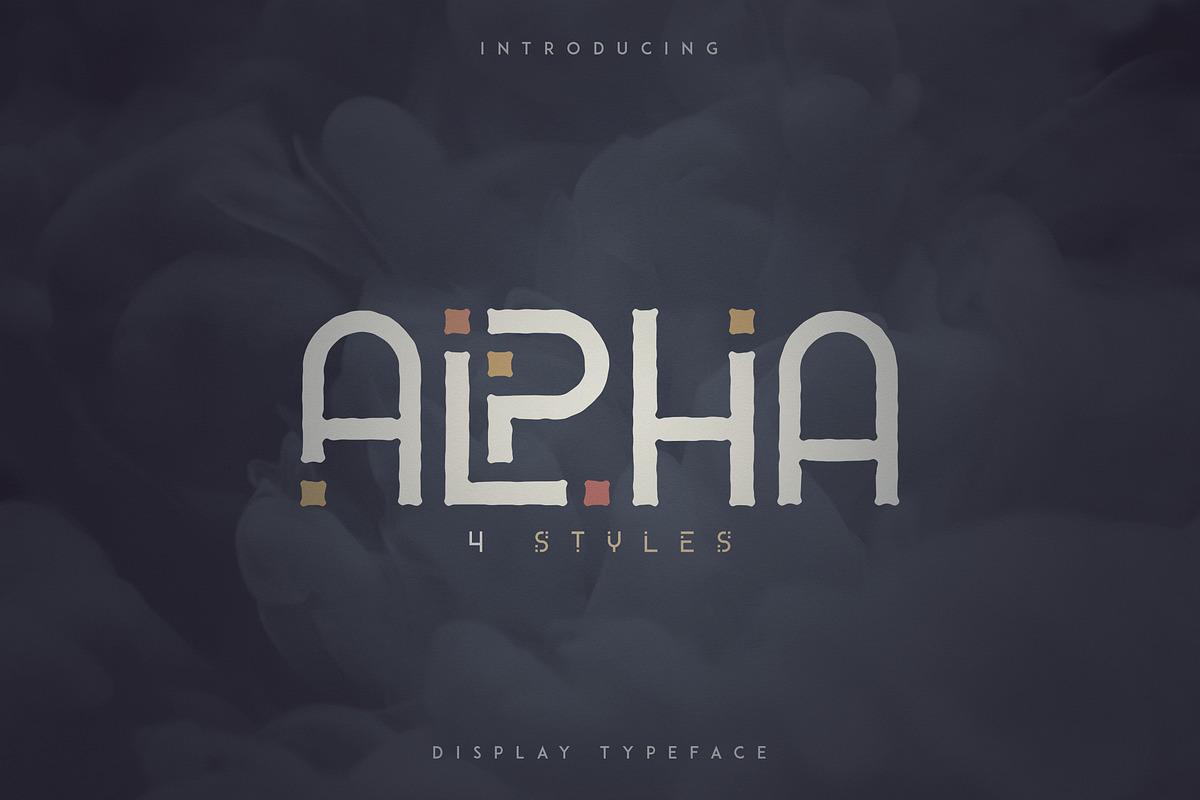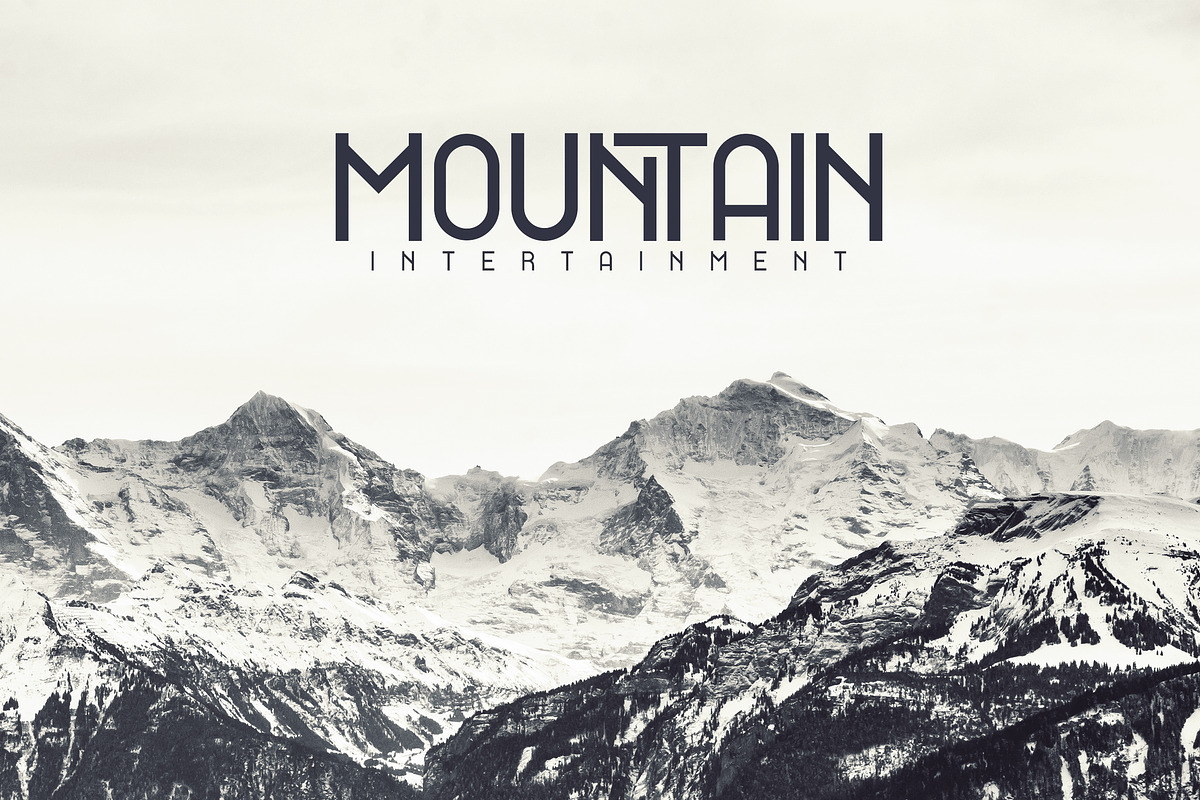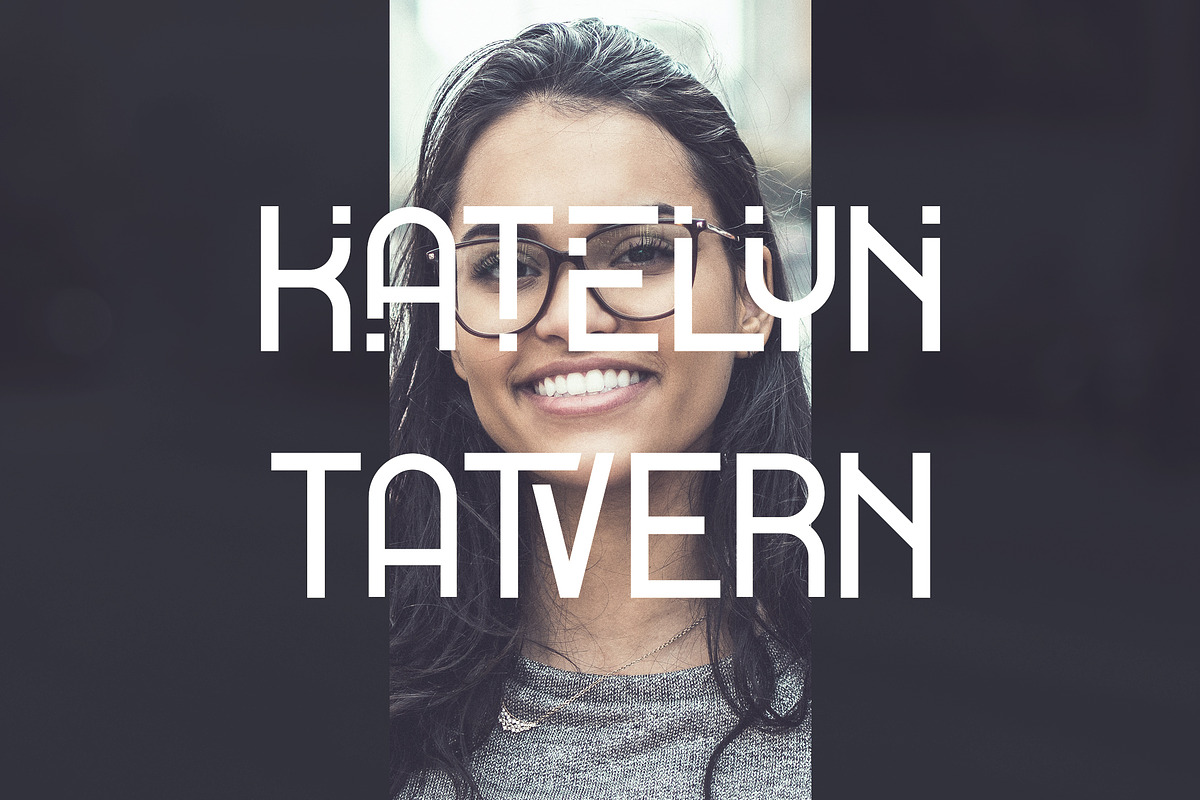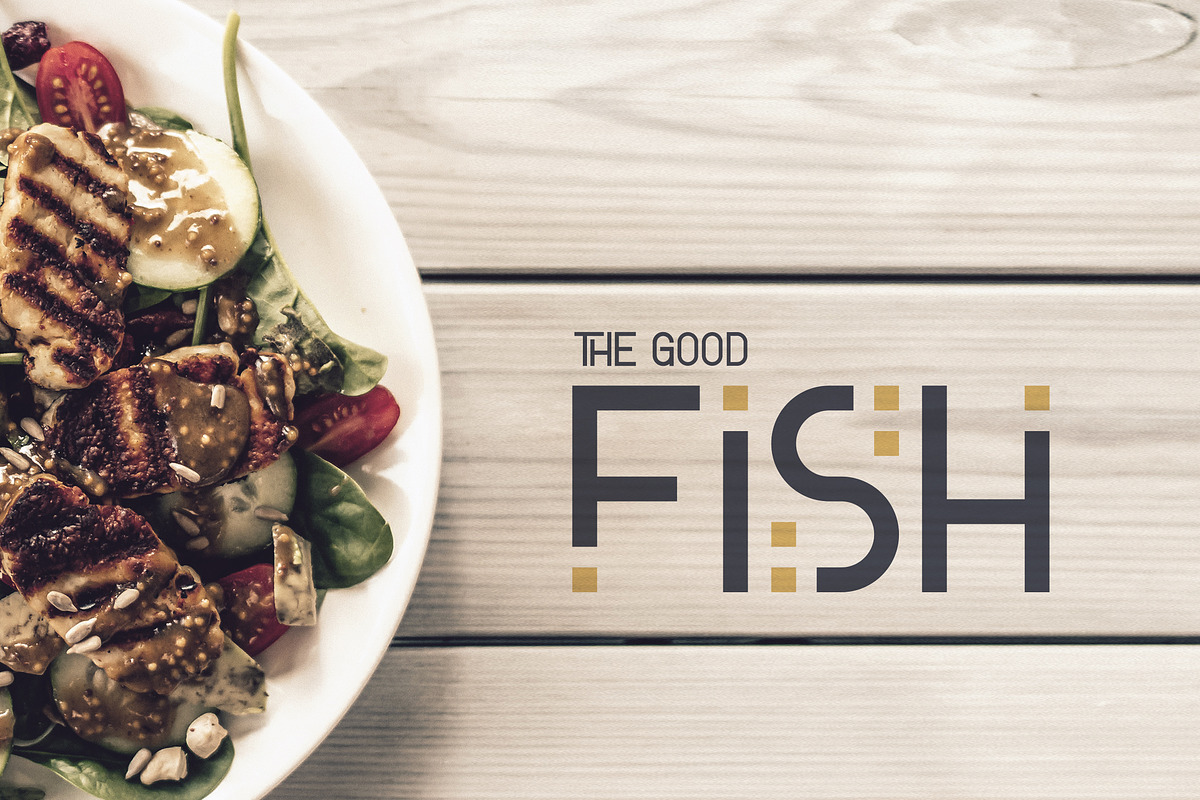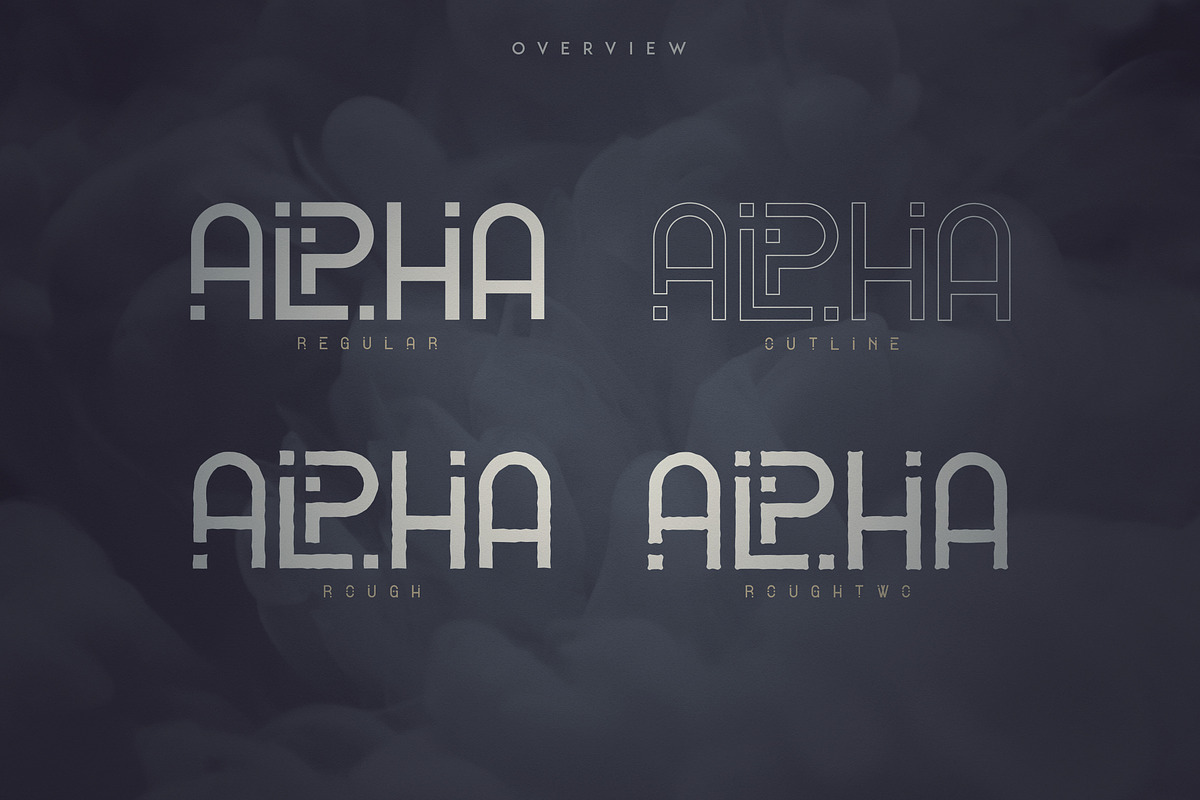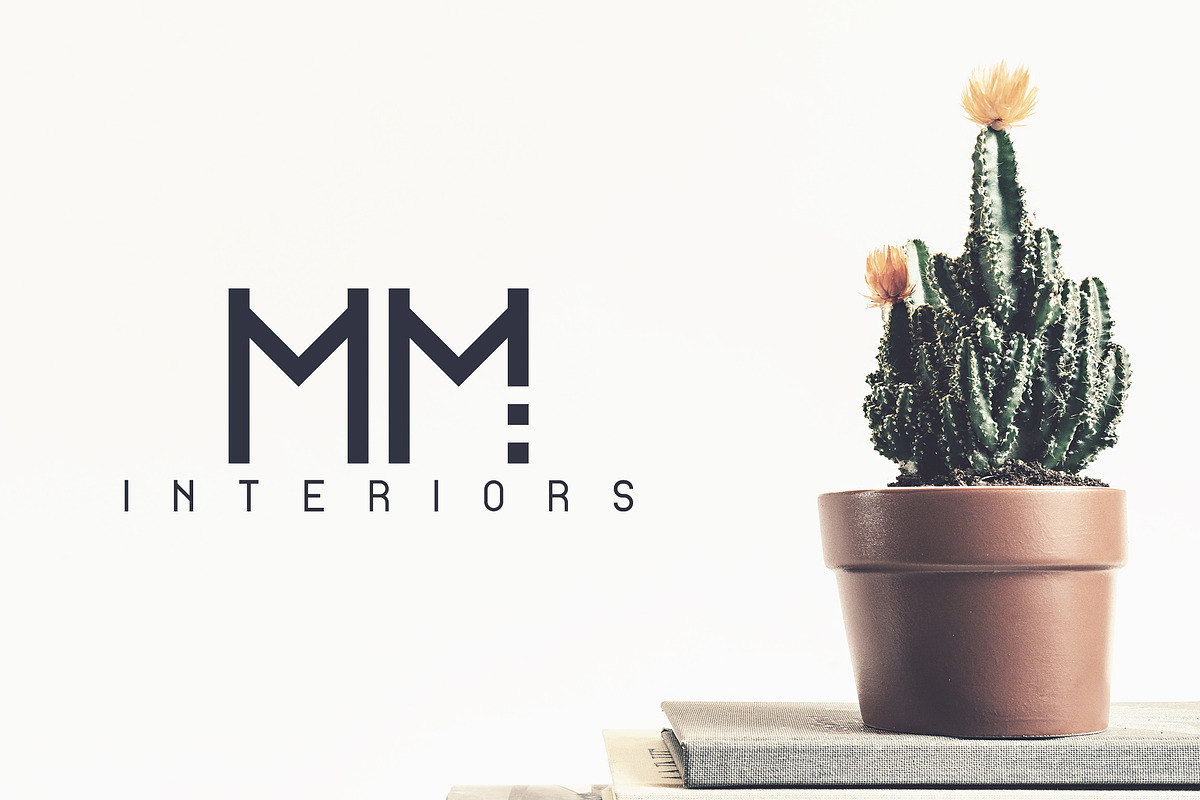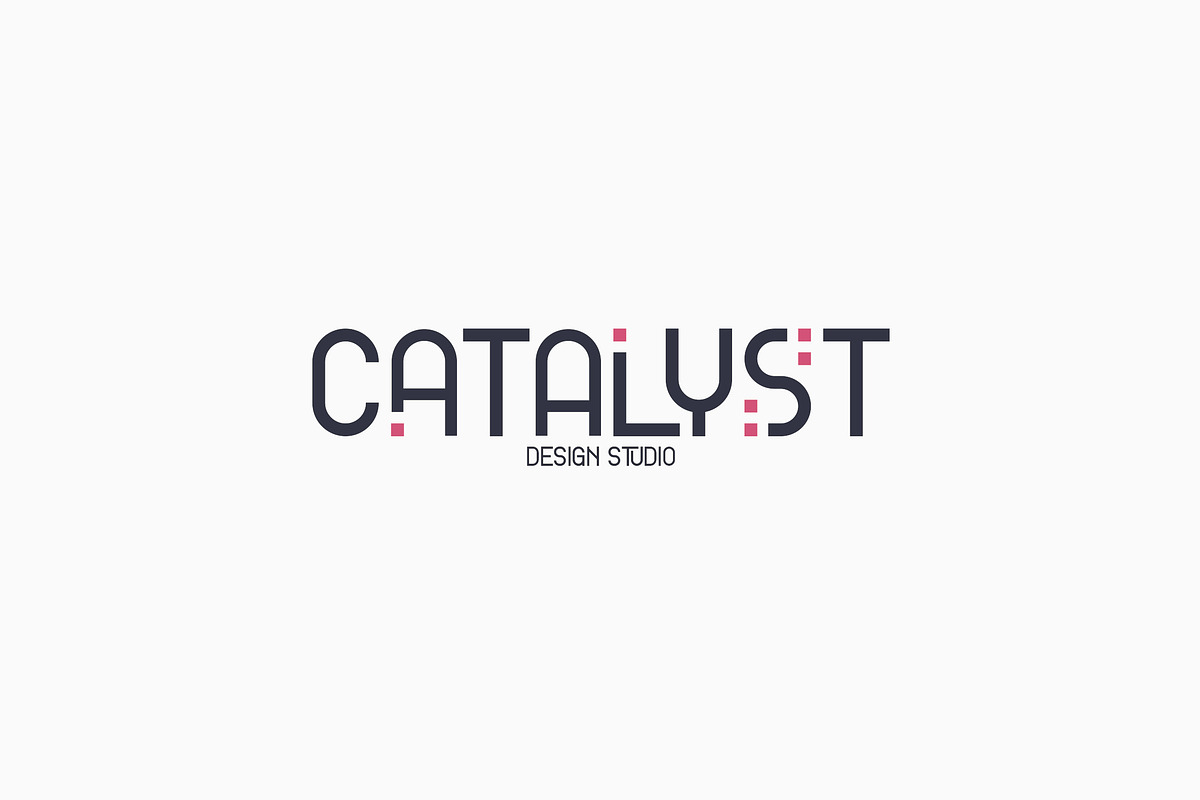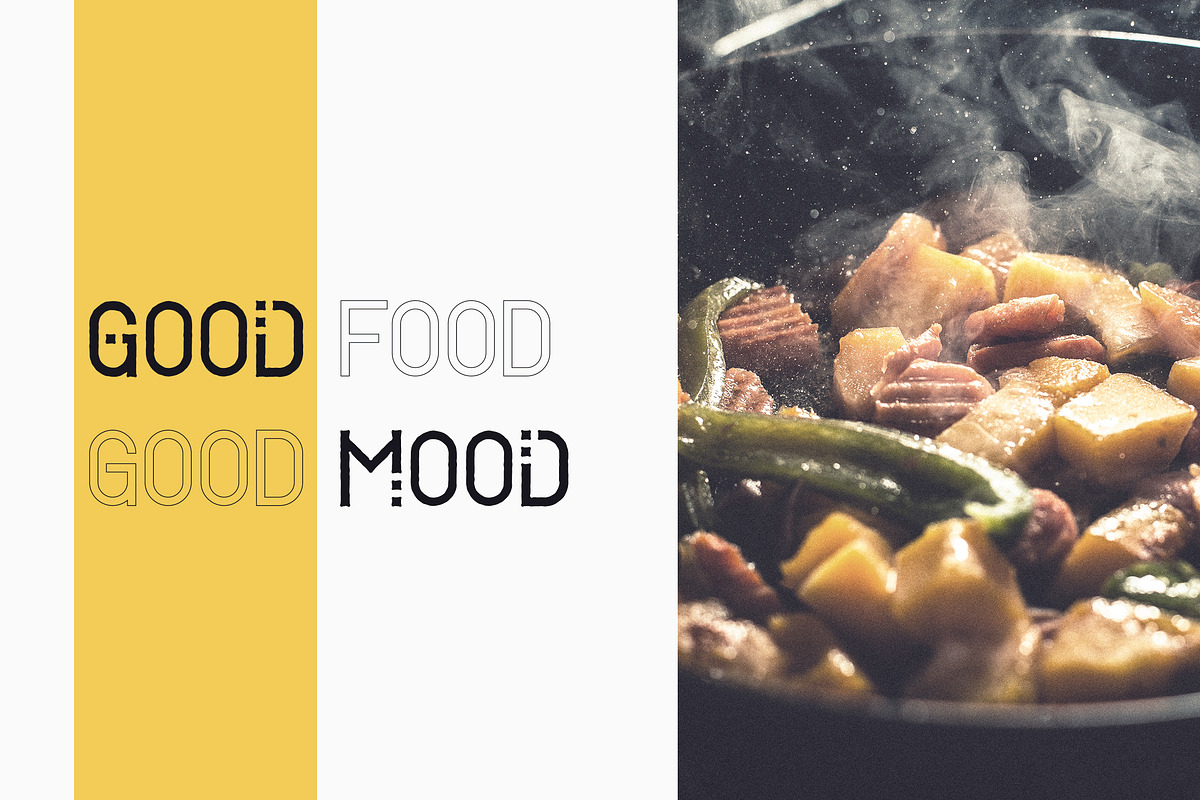
Alpha Display Font - 4 styles
Alpha is vintage, clean display font with 4 styles, tons of ligatures and multilingual support. It's a very versatile font that works great in large and small sizes.
Alpha is perfect for branding projects, home-ware designs, product packaging, magazine headers - or simply as a stylish text overlay to any background image.
- Alpha Regular
- Alpha Outline
- Alpha Rough
- Alpha RoughTwo